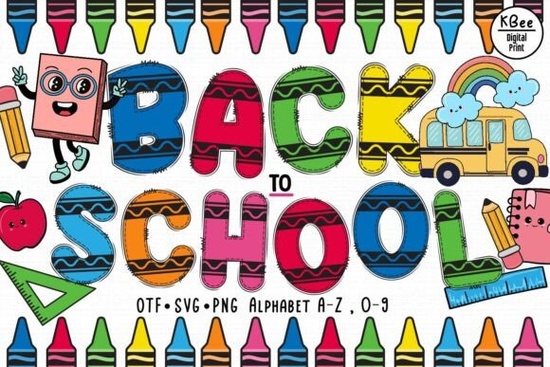
If you're working on back-to-school projects whether it’s designing classroom posters, customizing kids’ apparel, or creating printable planners the Back to School Font offers a playful, hand-drawn look that feels both nostalgic and fresh. This digital set includes not just a fun alphabet font but also matching doodle-style clip art of retro school supplies like pencils, rulers, apples, and notebooks.
What makes this bundle especially useful is its dual format: a solid black version that works seamlessly with cutting machines like Cricut Design Space, and a full-color version designed for layered graphic programs such as Photoshop, Illustrator, Silhouette Studio, and Inkscape. Just keep in mind that the color version uses OpenType-SVG (OTF/TTF) technology, which isn’t supported by Cricut so if you’re planning to cut vinyl or heat-transfer material, stick with the black outline style.
What can you actually make with this font?
This isn’t just another decorative typeface it’s a toolkit for real-world creative projects. Here are a few practical uses:
- Greeting cards and invitations for teacher appreciation week or first-day-of-school celebrations
- Educational printables like flashcards, labels, or reward charts with a cheerful, kid-friendly vibe
- Custom merchandise such as tote bags, mugs, or T-shirts for students, teachers, or PTA groups
- Scrapbook layouts featuring hand-lettered titles paired with the included school-themed clip art
- Digital products like Canva templates or printable planners sold through Etsy or your own shop
The hand-drawn aesthetic gives your work an approachable, human touch perfect when you want to avoid overly polished or corporate-looking designs.
How does it compare to other playful fonts?
If you’ve browsed Creative Fabrica’s colorful font collection, you might have seen options like the American Coquette Font or the Preppy Coquette Font, which lean into trendy “coquette” styling with hearts and cursive flair. The Back to School Font takes a different route: it’s more about crayon-like simplicity and classroom nostalgia than romantic motifs.
Similarly, while the Patriotic US Font and American Flag Font are great for July 4th or civic-themed projects, this set is purpose-built for academic settings think apple cores, pencil shavings, and spiral notebooks rather than stars and stripes.
Since the pack includes both letters and matching illustrations, try combining them for cohesive layouts. For example, spell out “READ” using the font, then tuck a doodle of a book or apple beside it. Or use the pencil clip art as bullet points in a back-to-school checklist.
For print-on-demand creators, this aesthetic resonates well with parents shopping for personalized gear in late summer. Consider bundling designs like a matching lunchbox label and water bottle wrap using consistent elements from the set.
Whether you’re a teacher making classroom decor, a crafter selling custom backpacks, or a designer building seasonal digital kits, the Back to School Font gives you authentic, ready-to-use assets that save time without sacrificing charm.